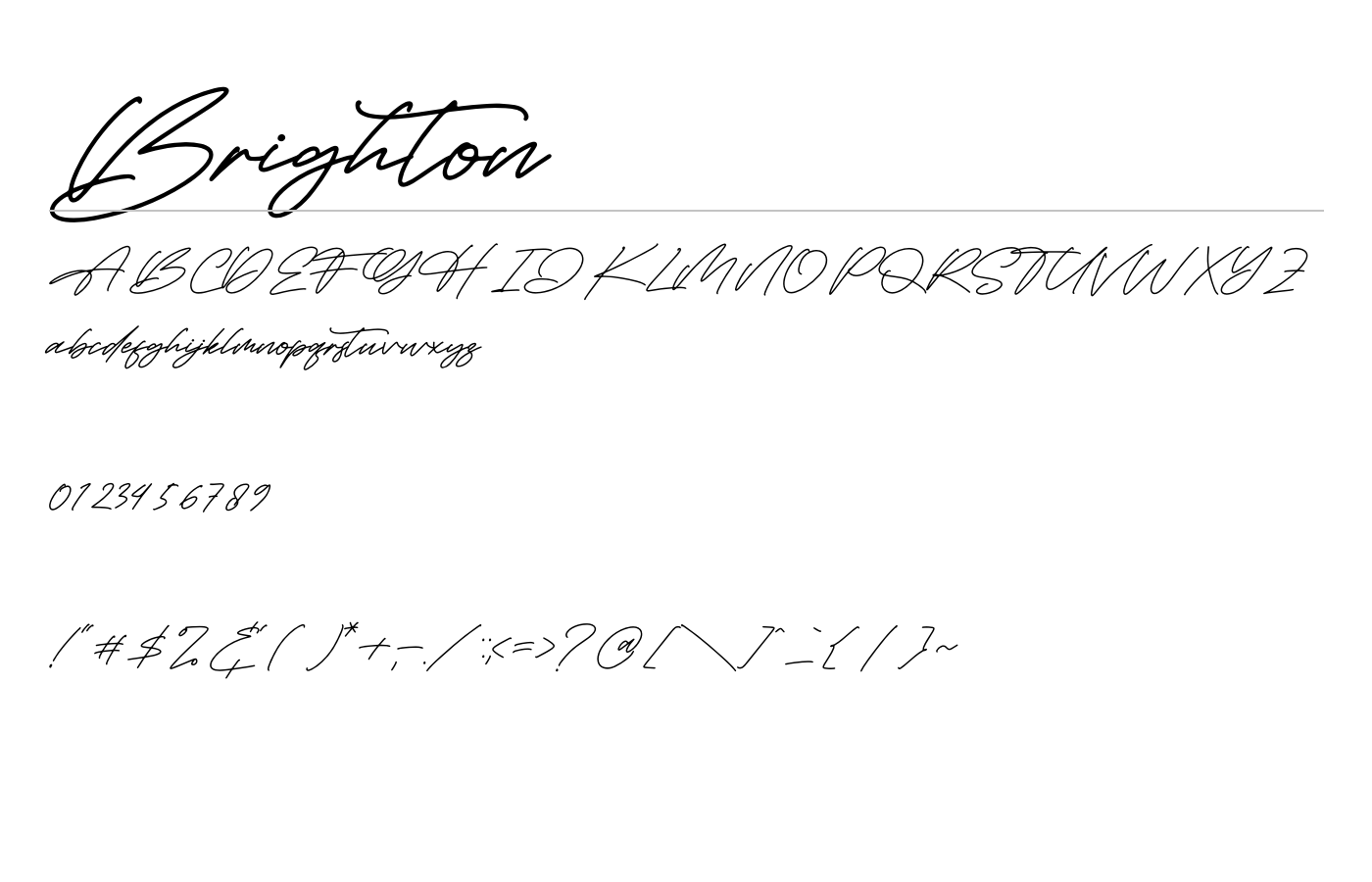
Brighton is a delicate, flowing script font that evokes elegance and a personal touch with its fine, handwritten style. Its slender, calligraphic strokes and graceful letterforms bring a sophisticated, artistic feel perfect for branding, invitations, or luxury packaging where a refined, intimate mood is desired. This font shines in settings that benefit from a stylish yet approachable aesthetic, adding a sense of charm and uniqueness.
Brighton Font
About Brighton Font